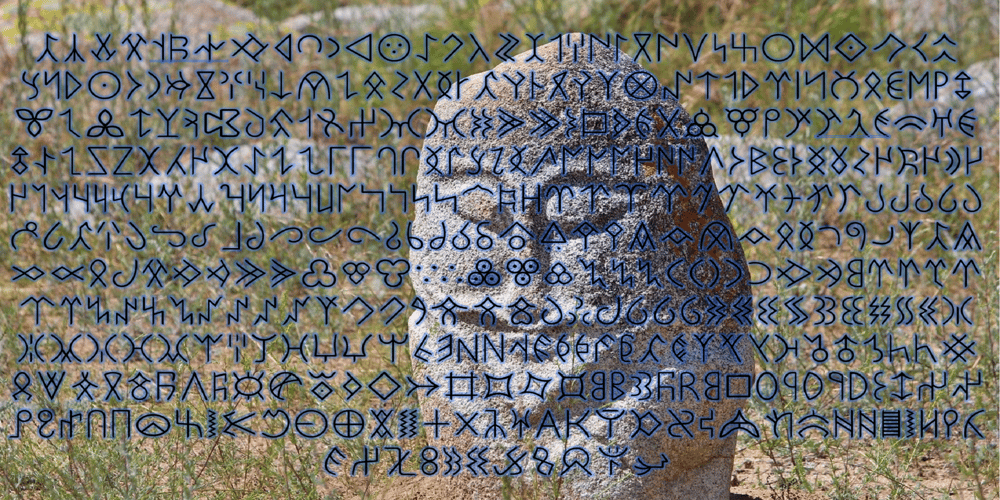
Ongunkan Turkic Full Yenisei Font Family was designed by Osman Nuri ALKAN and published by Runic World Tamgacı. Ongunkan Turkic Full Yenisei contains 1 styles and family package options. This font contains all variants for Yenisei inscriptions. It took 1 year to build and was quite laborious. The use of this font is for academic studies. Contact me for derivative provisions. The file is quite long. I will send it to you as a PDF.The Yenisey Inscriptions consist of a total of 158 Turkish inscriptions, kurgans (tombs) and rock stones found so far along the Yenisey River passing through the Autonomous Republics of Khakassia, Tuva and Altai in Russia. The inscriptions were written with Turkish Stamps, which we know as the Orkhon Alphabet.Today, it is located in kurgans in the Khakassia, Tyva, Mountainous Altai republics region, in the Krasnoyarsk province, along the Lena river, and along the Yenisei, Abakan, Kemchik, Kem, Oya, Elegest rivers.It is accepted that the Yenisey Inscriptions belong to different Turkish tribes living in the Yenisey region. It is accepted that these inscriptions were created before the Göktürk Inscriptions. Some of these inscriptions, which are usually erected as tombstones, are a few words long, most of them 5-10 lines. These inscriptions were written in a simple and understated language. It is often seen that the author explains in a sincere manner that he left this world unsatisfied.